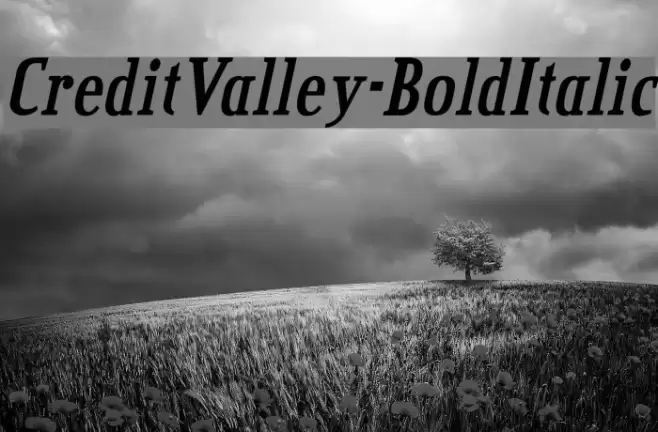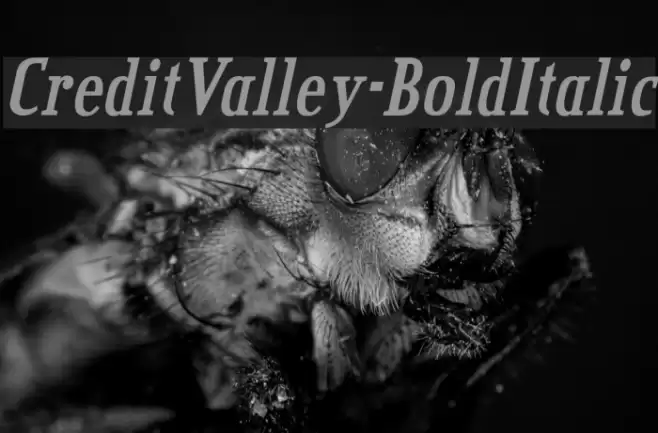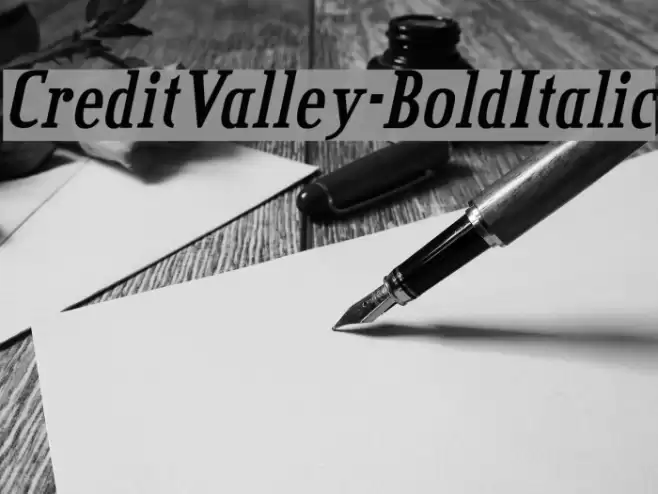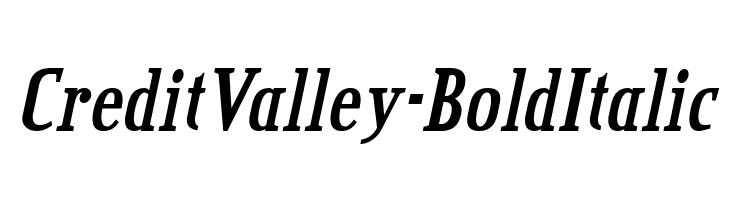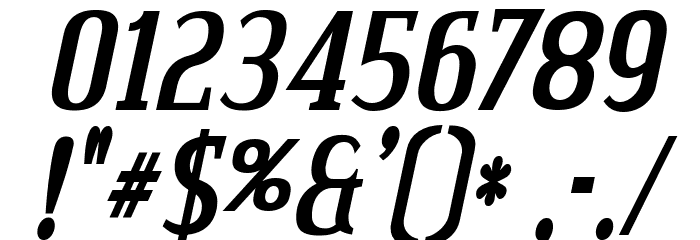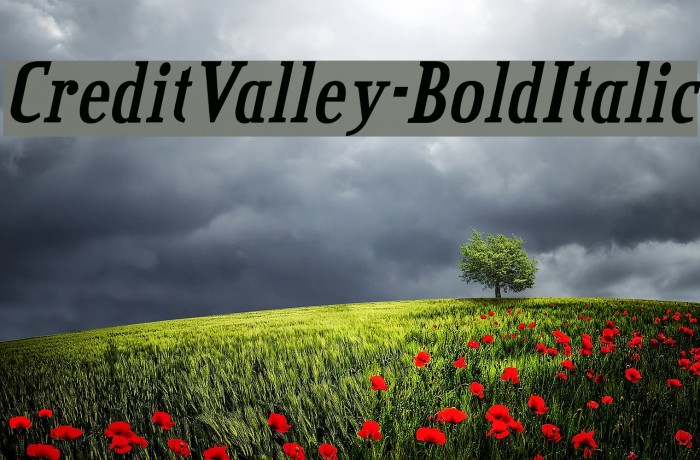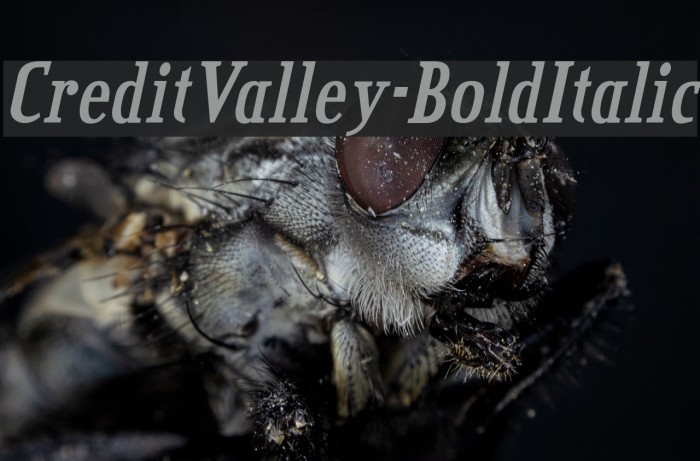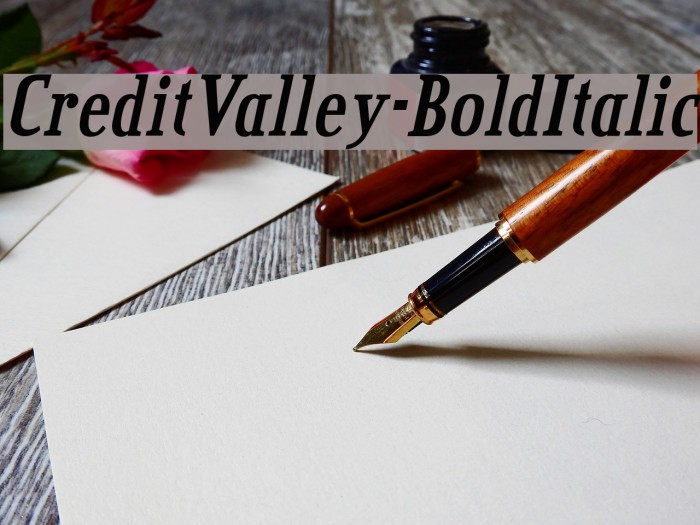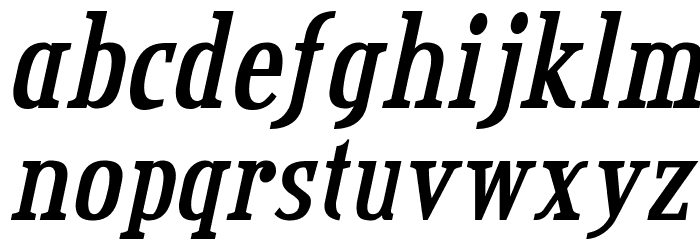
CreditValley-BoldItalic Font
CreditValley-BoldItalic Description
This font features a bold and italicized style, combining strength with elegance. The uppercase letters are tall and commanding, while the lowercase letters maintain a consistent flow, adding a touch of sophistication. The numerals are clear and robust, ensuring readability. Special characters are designed with a unique flair, making them stand out. The overall appearance is dynamic and impactful, suitable for making a strong visual statement.
A bold, italicized font with a dynamic and elegant style from Uncategorized fonts.
- Proposed Projects: Ideal for branding, advertising, and editorial design where a strong and stylish impact is desired.